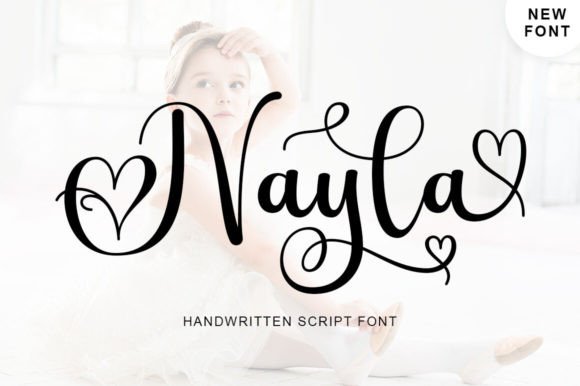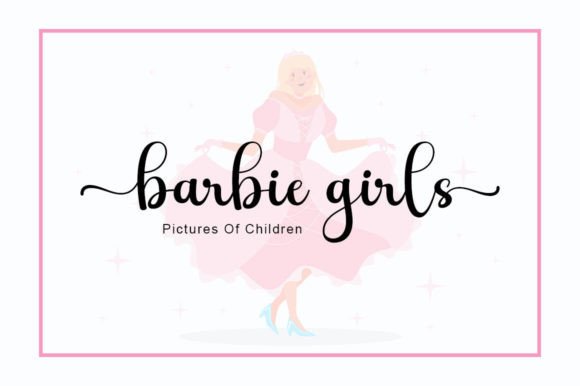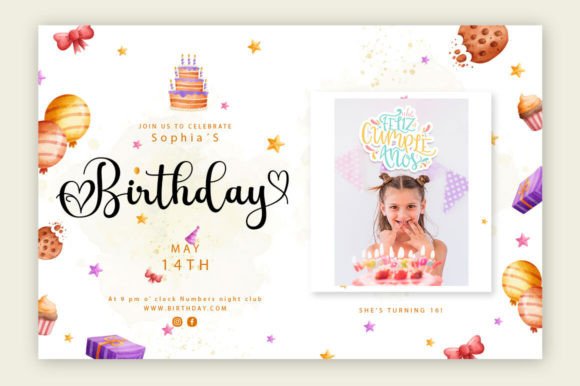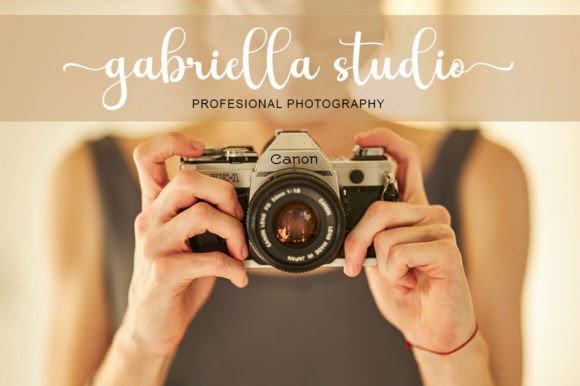
Nayla Font: Elegant Calligraphy Script for Wedding & Branding Design
About the Nayla Font
Let us introduce you to Nayla Font, where timeless design meets modern craftsmanship. Nayla Script – is a Fresh and modern font script with a handwritten calligraphy style, decorative characters, and a dancing baseline! So beautiful on the invitation like greeting cards, branding materials, business cards, quotes, posters, and more!
Nayla Script’s expressive, dancing baseline makes it ideal for headlines, short text blocks on posters or invitations, and logos requiring a touch of handwritten elegance. It excels in branding for businesses emphasizing creativity, femininity, or a handcrafted aesthetic. However, its decorative nature and varying baseline make it unsuitable for body text or UI elements where readability is paramount. Avoid using it for long paragraphs or small sizes.
Pairing Nayla with a clean sans-serif like Open Sans for body copy creates a strong visual contrast, balancing the script’s playful energy with clear, legible text. For a more sophisticated feel, consider pairing it with a classic serif like Garamond or a geometric sans-serif like Montserrat. These pairings offer a refined counterpoint to Nayla’s expressive forms.
Nayla’s overall personality is best described as elegant yet playful; modern but with a touch of vintage charm. It is well-suited to projects that need a sophisticated and inviting feel, such as wedding invitations, boutique branding, or product packaging for artisan goods.